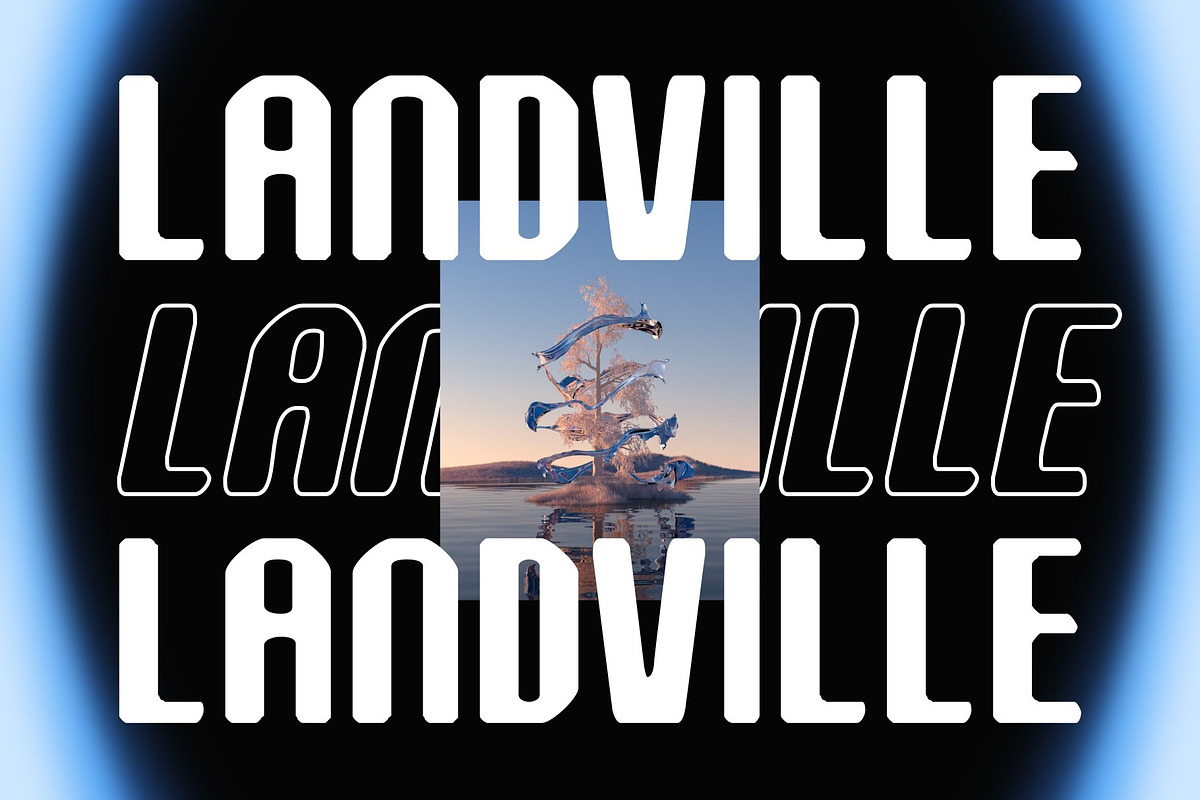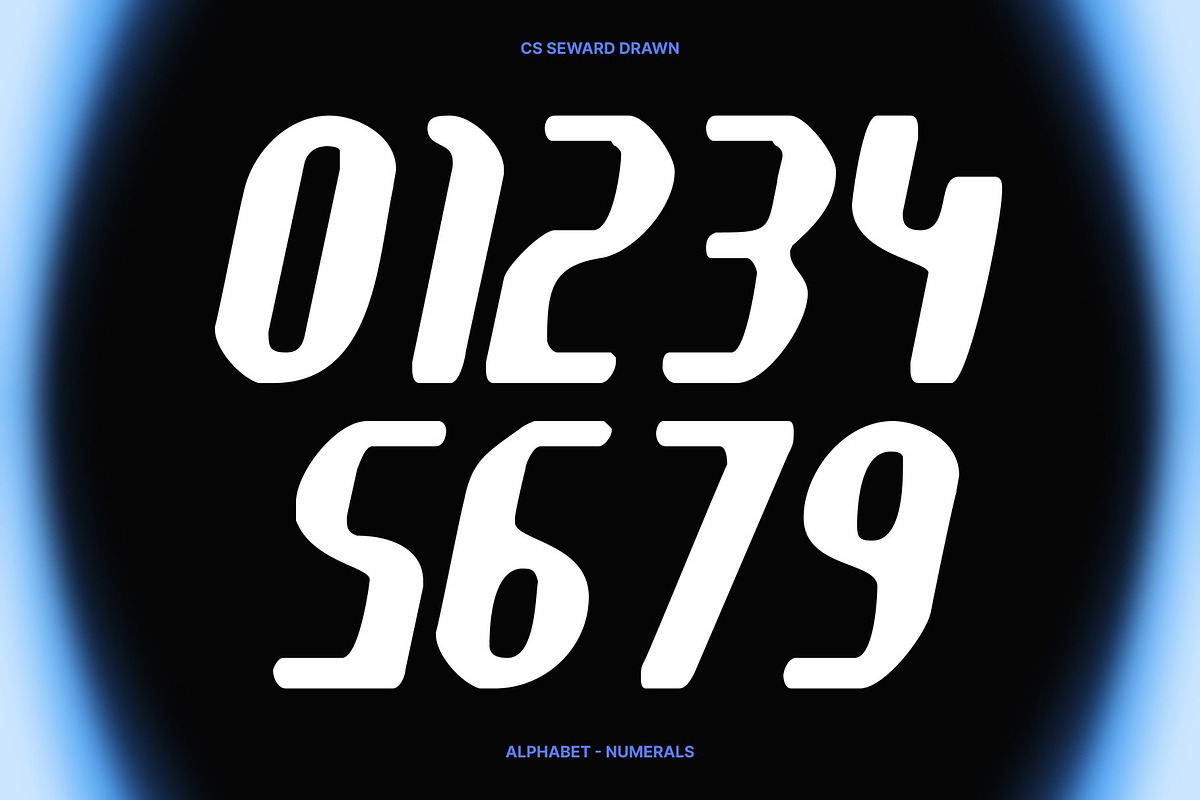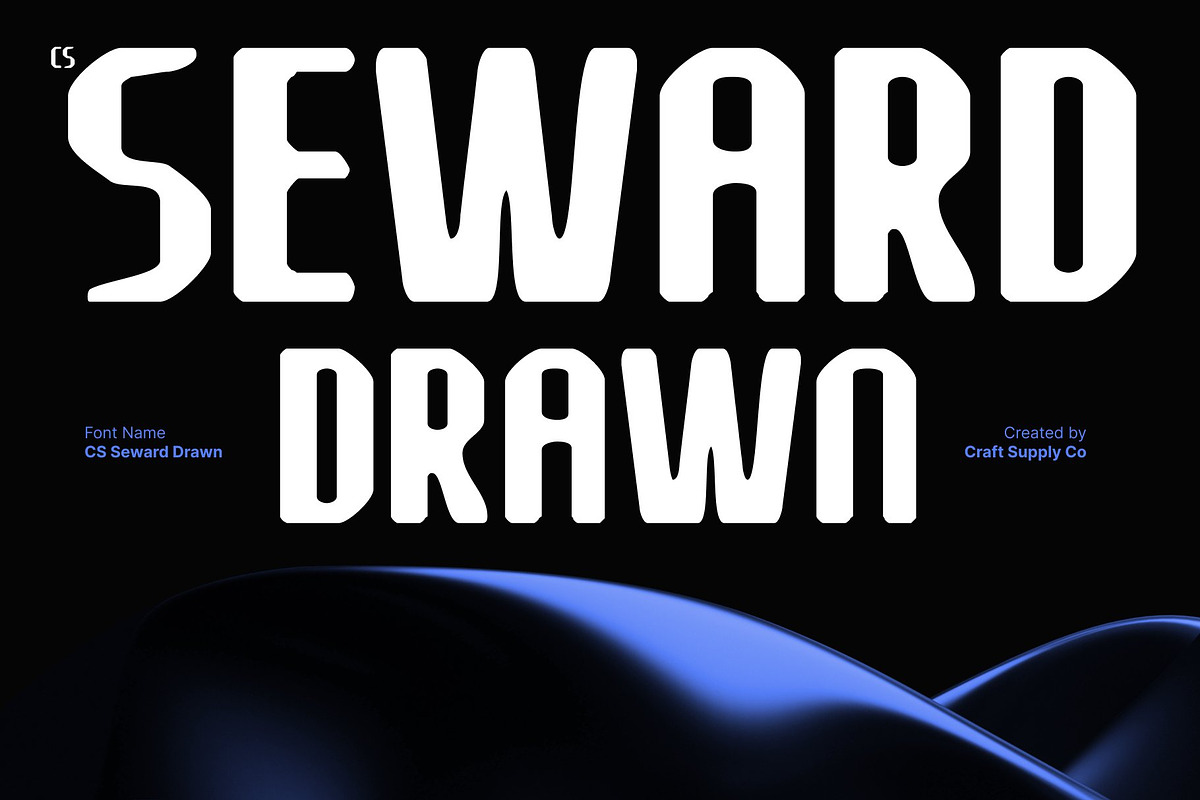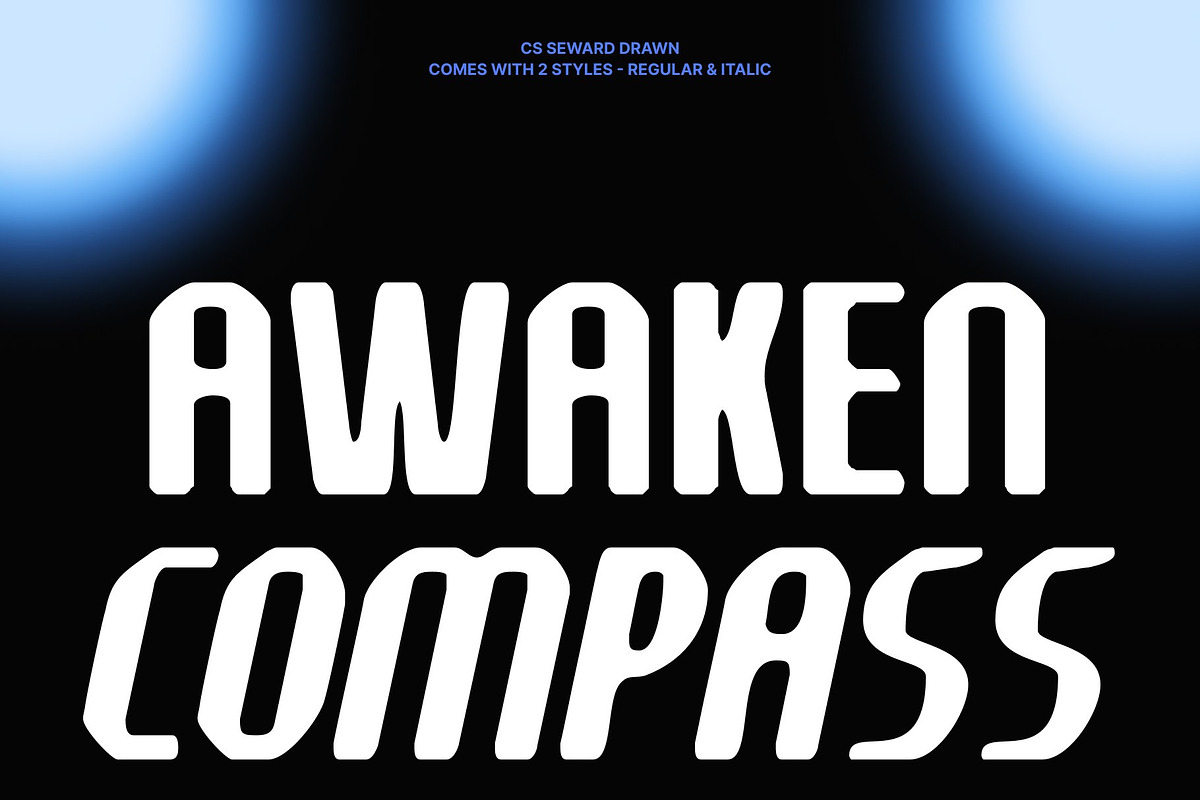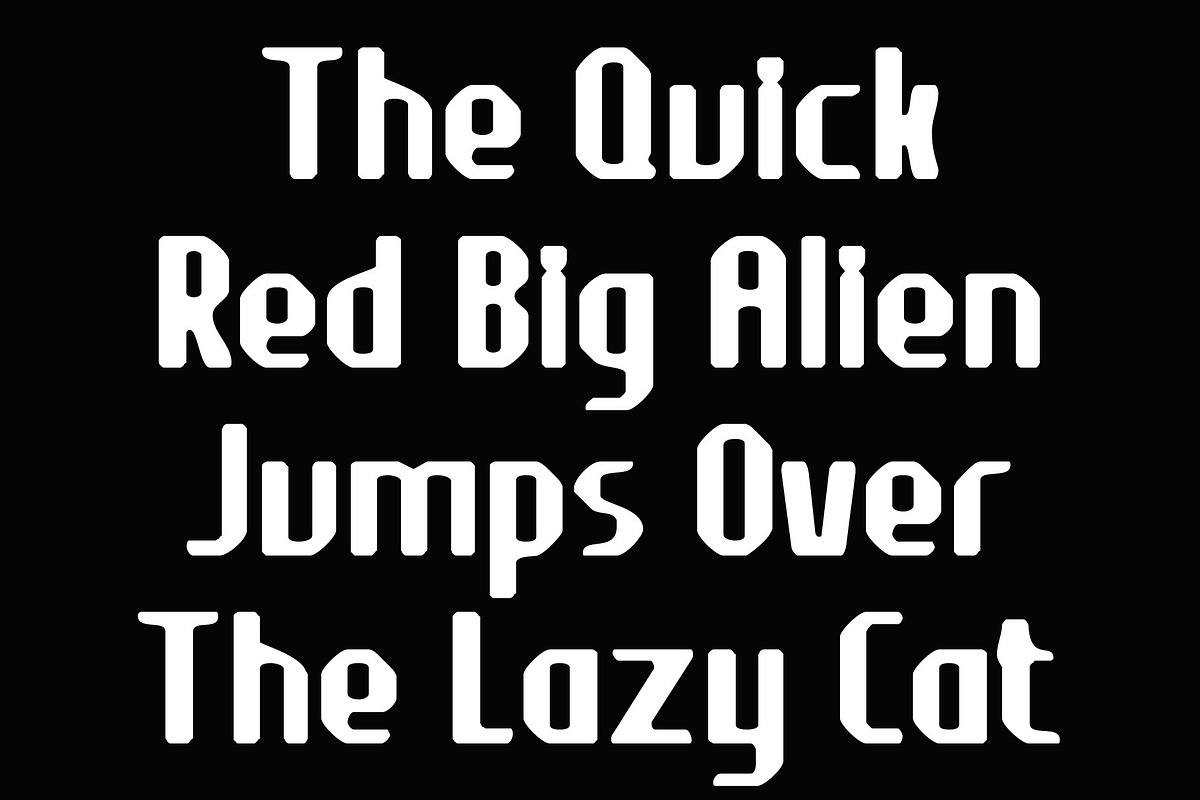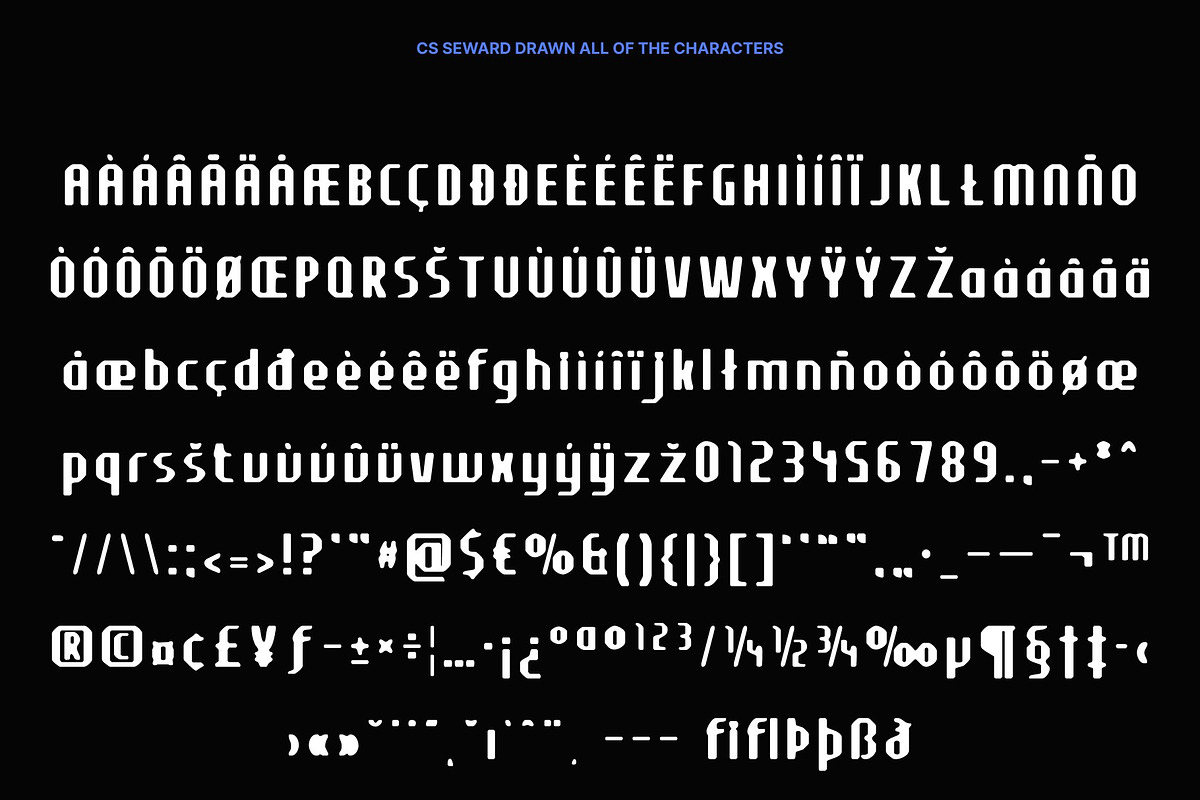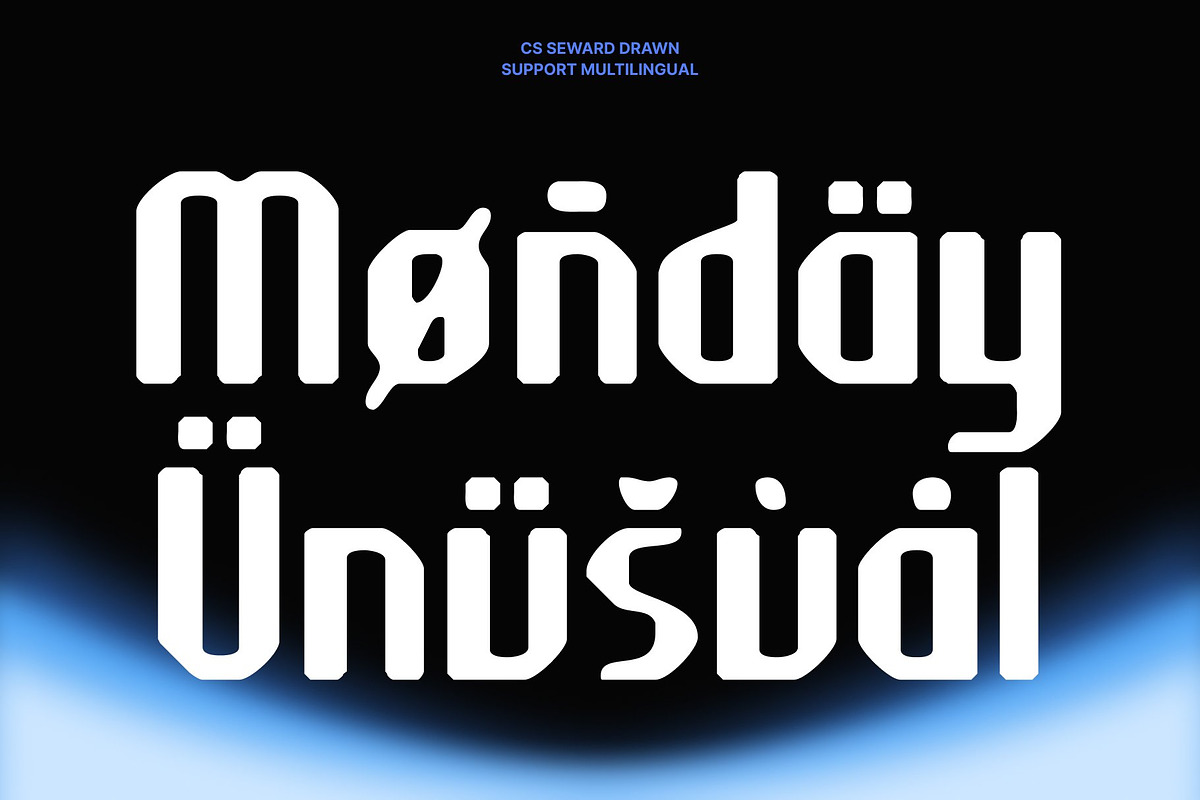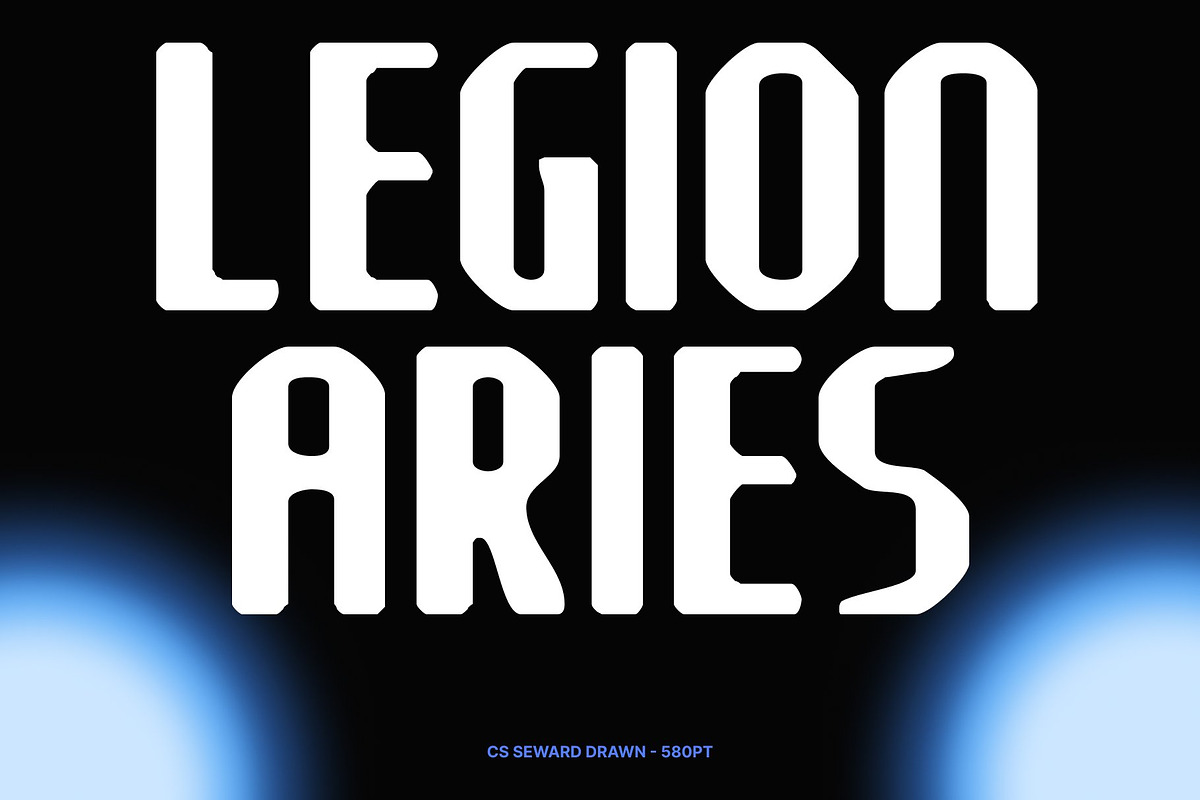
CS Seward Drawn
CS Seward Drawn – Rugged Industrial Strength with Handcrafted Edge
Industrial Display Font with Powerful Masculine Character This is an industrial-style display font built to convey strength, confidence, and raw masculinity. Its solid construction and assertive letterforms create a commanding presence inspired by mechanical forms and industrial environments. Designed for impact, this font delivers bold visual energy that immediately stands out in any composition.
Rugged Forms Enhanced with Drawn Texture The drawn finish adds a handcrafted, expressive layer to the font’s strong structure. Subtle texture and imperfect edges soften the rigidity of its industrial shapes, giving each character a human, handmade feel. This combination of toughness and artistry creates a distinctive balance between raw power and creative expression.
Bold Expression with Authentic Attitude This font carries an unmistakable attitude confident, gritty, and unapologetic. Its rugged appearance makes it ideal for designs that need to feel strong and grounded, while the drawn effect keeps it approachable and visually engaging. Every letter feels intentional, expressive, and full of character.
Perfect for Branding, Packaging, and Impactful Headlines Designed for high-impact use, this font excels in branding, packaging, posters, logos, and powerful headlines. Its industrial masculinity and handcrafted texture make it a strong choice for workwear brands, outdoor products, music visuals, craft labels, and bold editorial designs. This font brings strength, texture, and authenticity to every message.